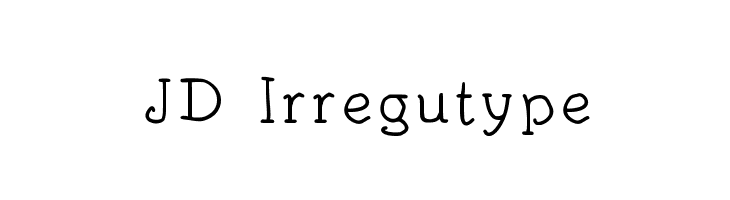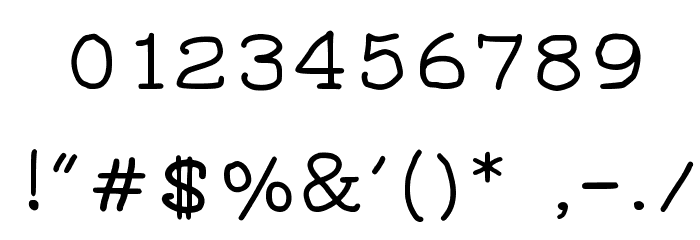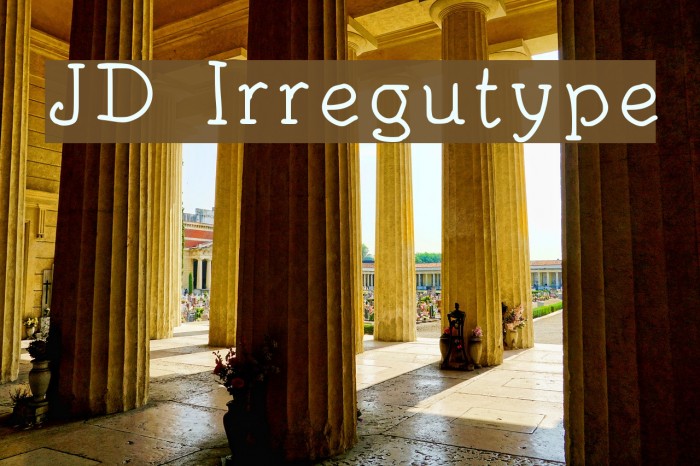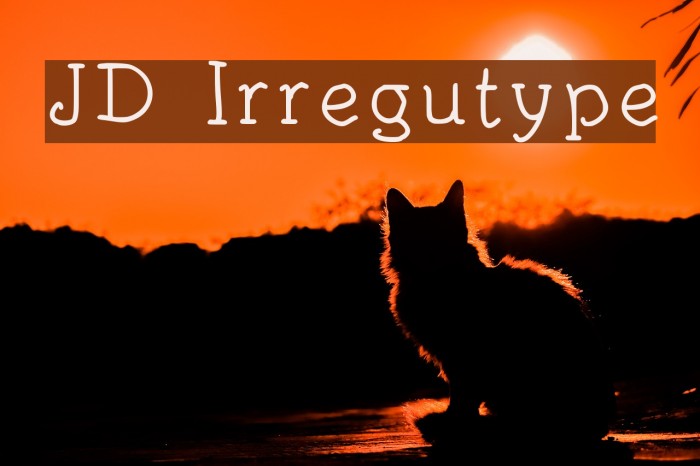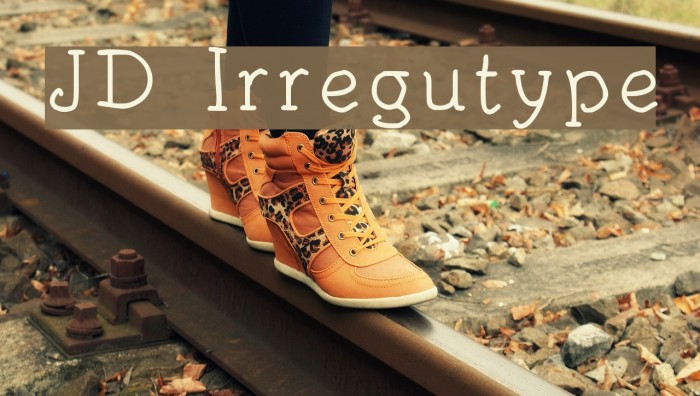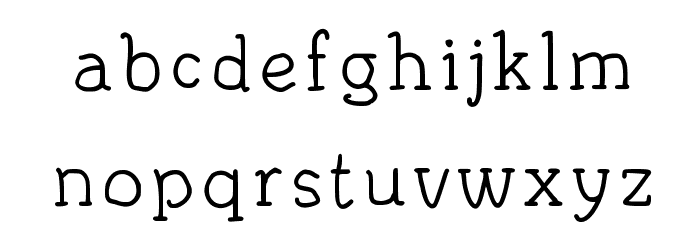
JD Irregutype Font
JD Irregutype Description
This font features an irregular, hand-drawn style that gives it a playful and whimsical appearance. The characters have a slightly uneven baseline and varying stroke widths, which adds to its quirky charm. The uppercase letters are bold and prominent, while the lowercase letters maintain a consistent style with a slightly more delicate touch. Numbers and special characters follow the same irregular pattern, making the font versatile for creative projects. The overall design is reminiscent of a casual handwritten note, perfect for adding a personal touch to any design.
A playful, hand-drawn font with irregular strokes and a whimsical style from Uncategorized fonts.
- Proposed Projects: Ideal for greeting cards, children's books, playful branding, and creative posters.
- Use Case: Headlines, Logos, Creative projects